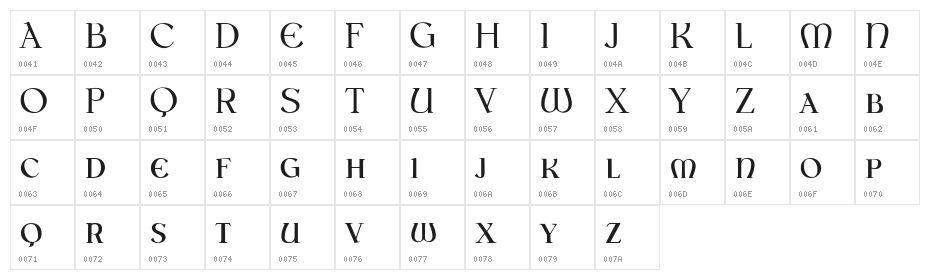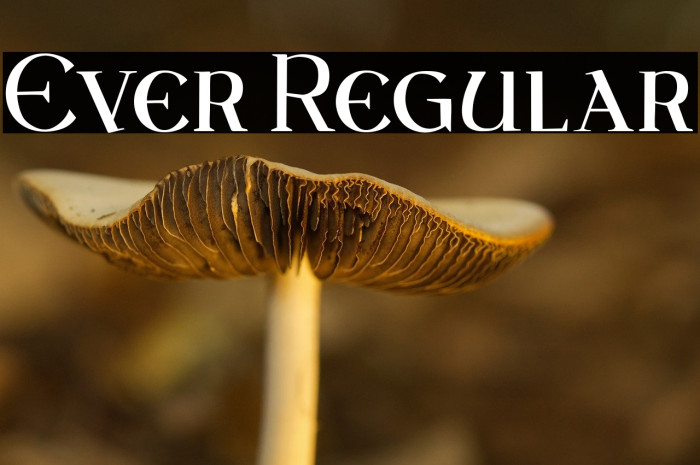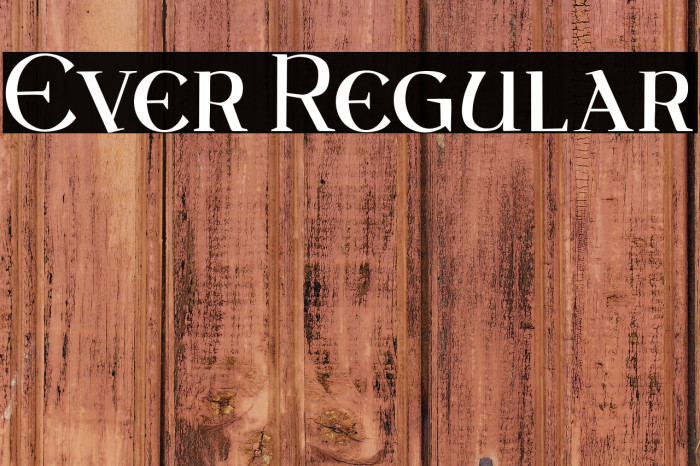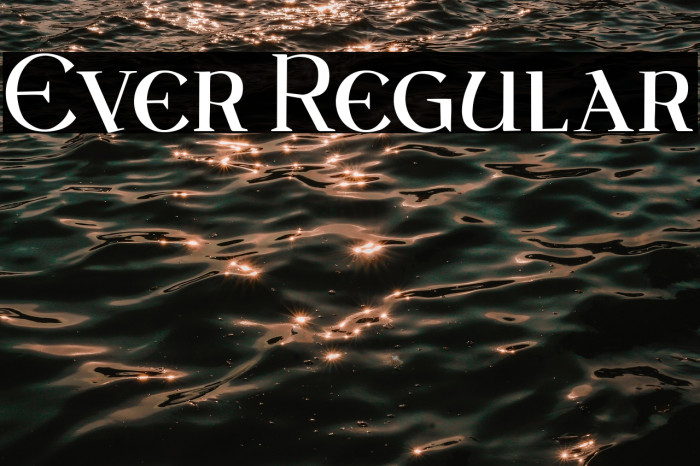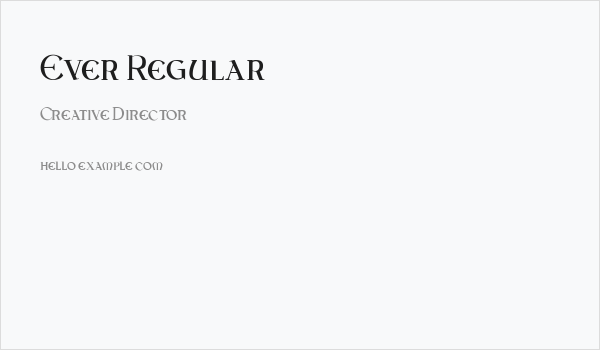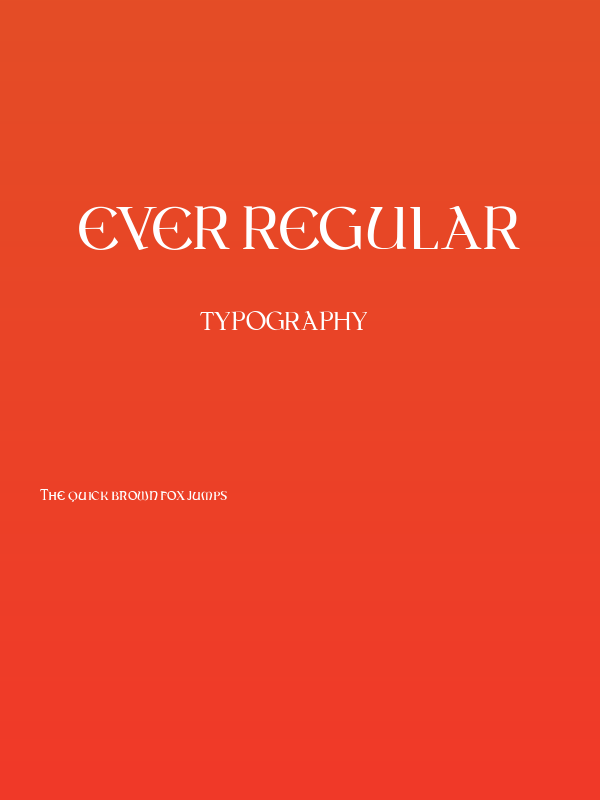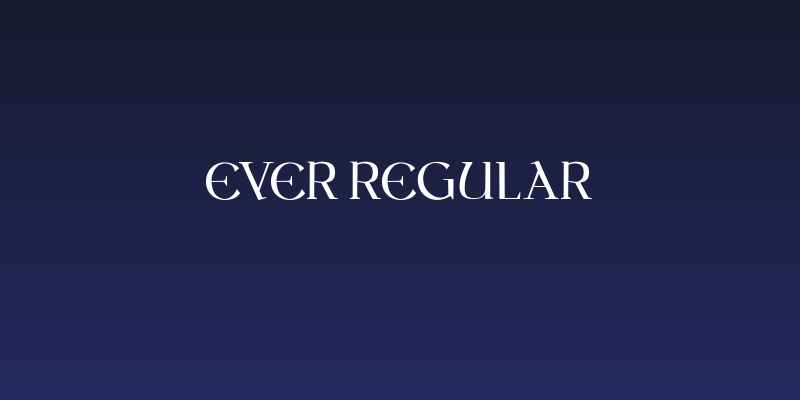
Ever Regular Font
Ever Regular Description
This font exhibits a classic serif style with a modern twist, characterized by its elegant and refined letterforms. The uppercase letters are distinct with sharp serifs and a slight curvature that adds a sophisticated flair. The lowercase letters maintain a consistent style, complementing the uppercase with their balanced proportions and subtle serifs. The numerals are clear and legible, designed to match the overall aesthetic of the font. Special characters are crafted with attention to detail, ensuring they blend seamlessly with the rest of the typeface. This font is versatile, suitable for both digital and print media, offering a timeless appeal that can enhance a variety of design projects.
| Overall Style | Classic |
| Use Case | Headlines, Body text, Logos |
| Proposed Projects | Ideal for editorial design, book covers, branding, and formal invitations. |